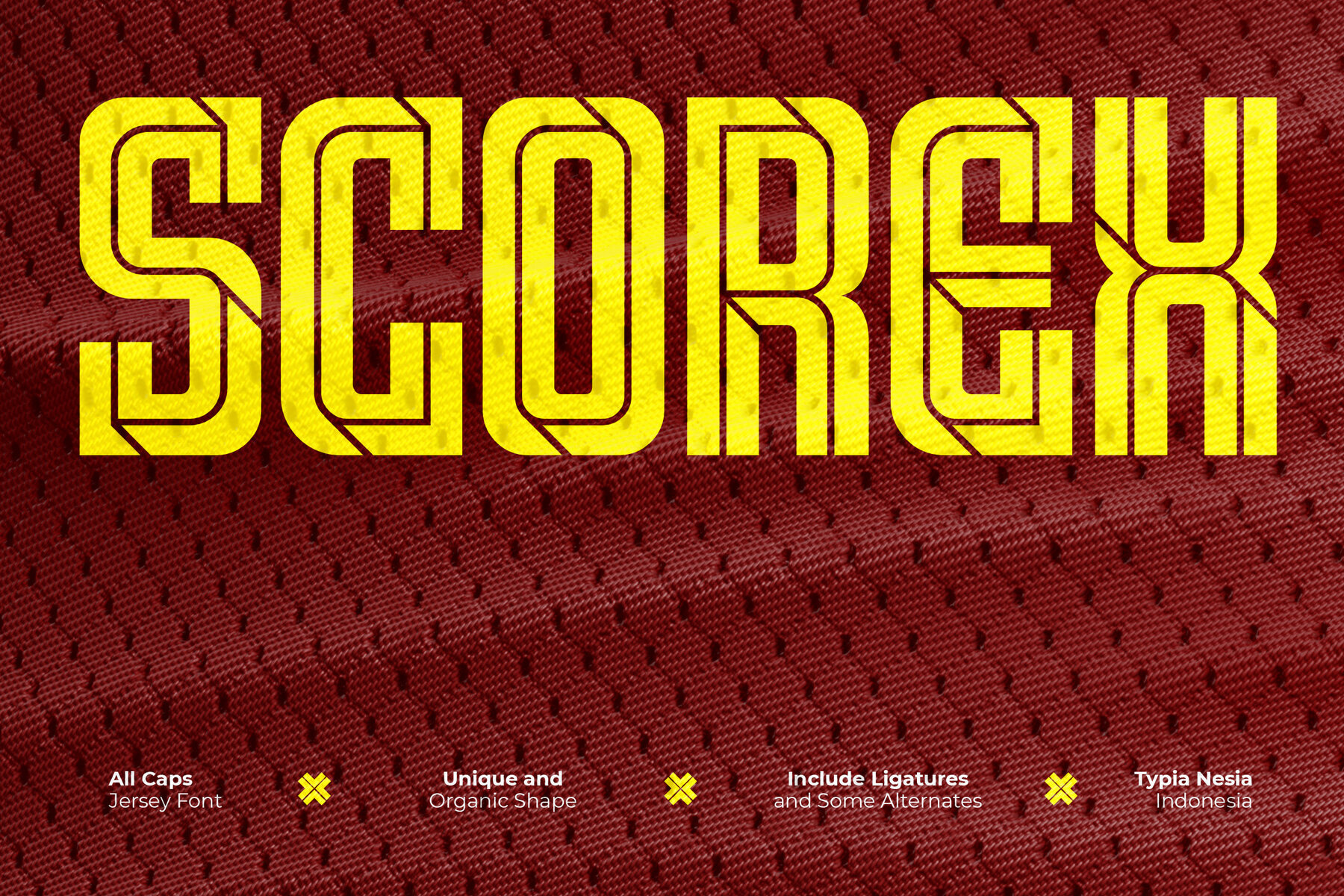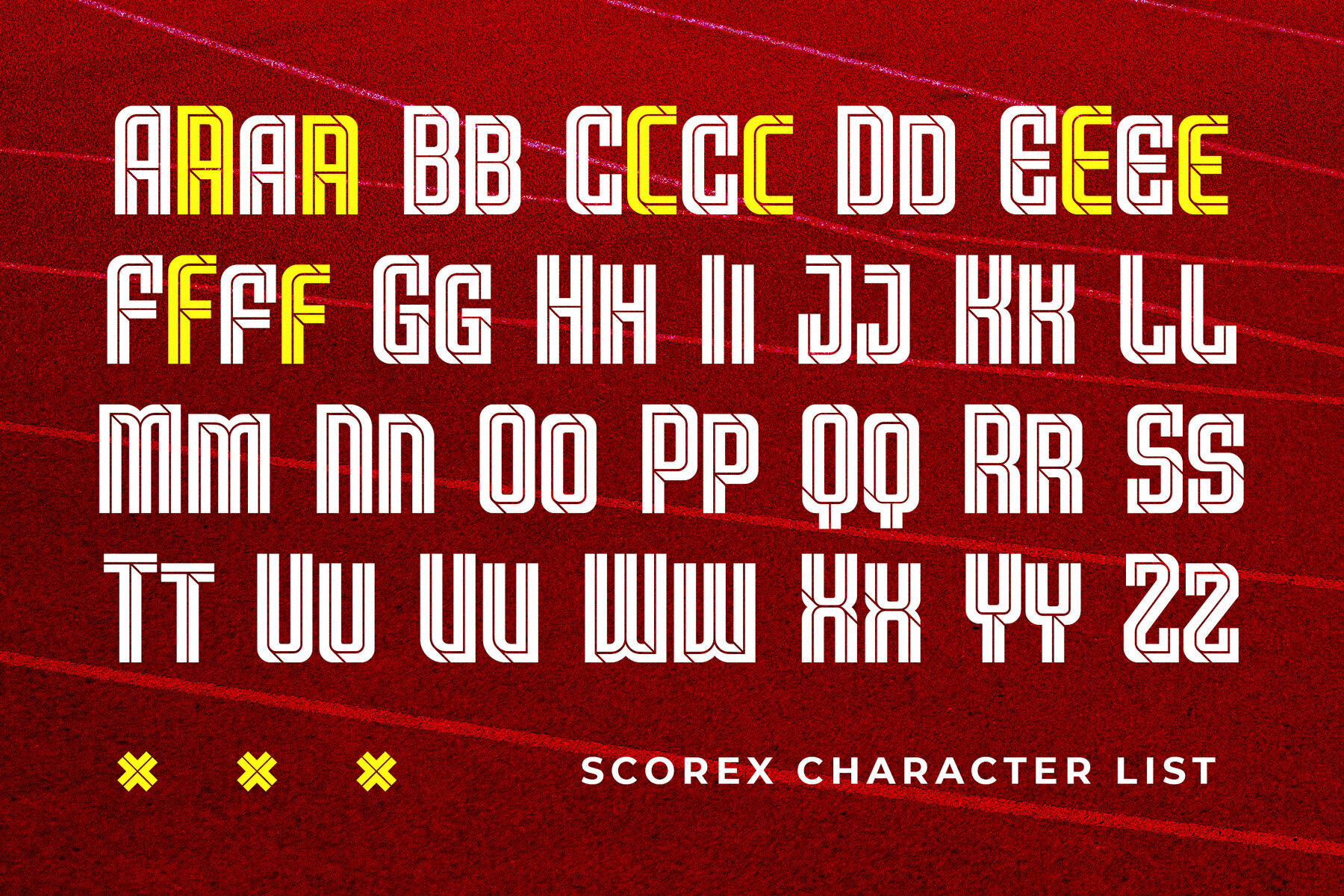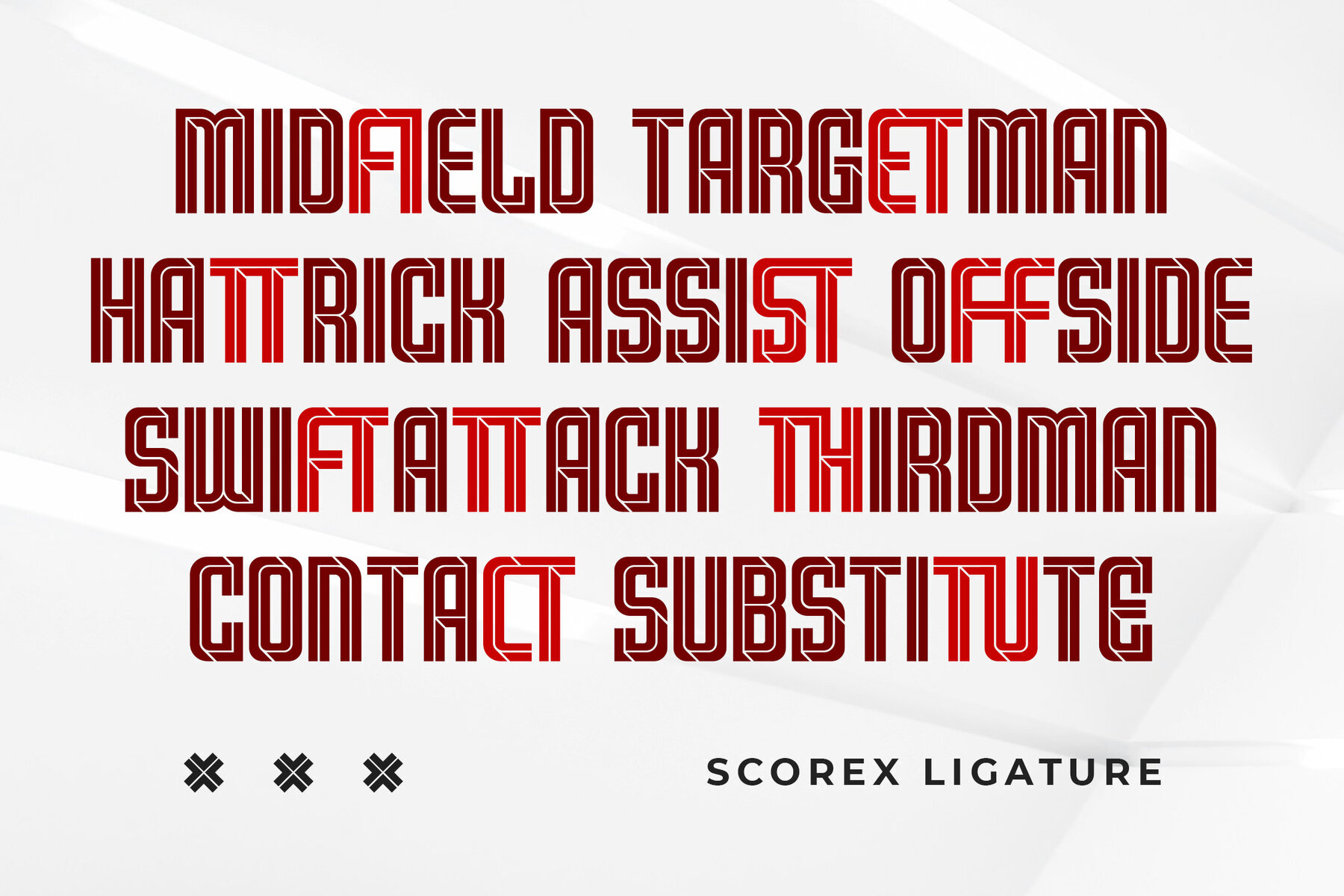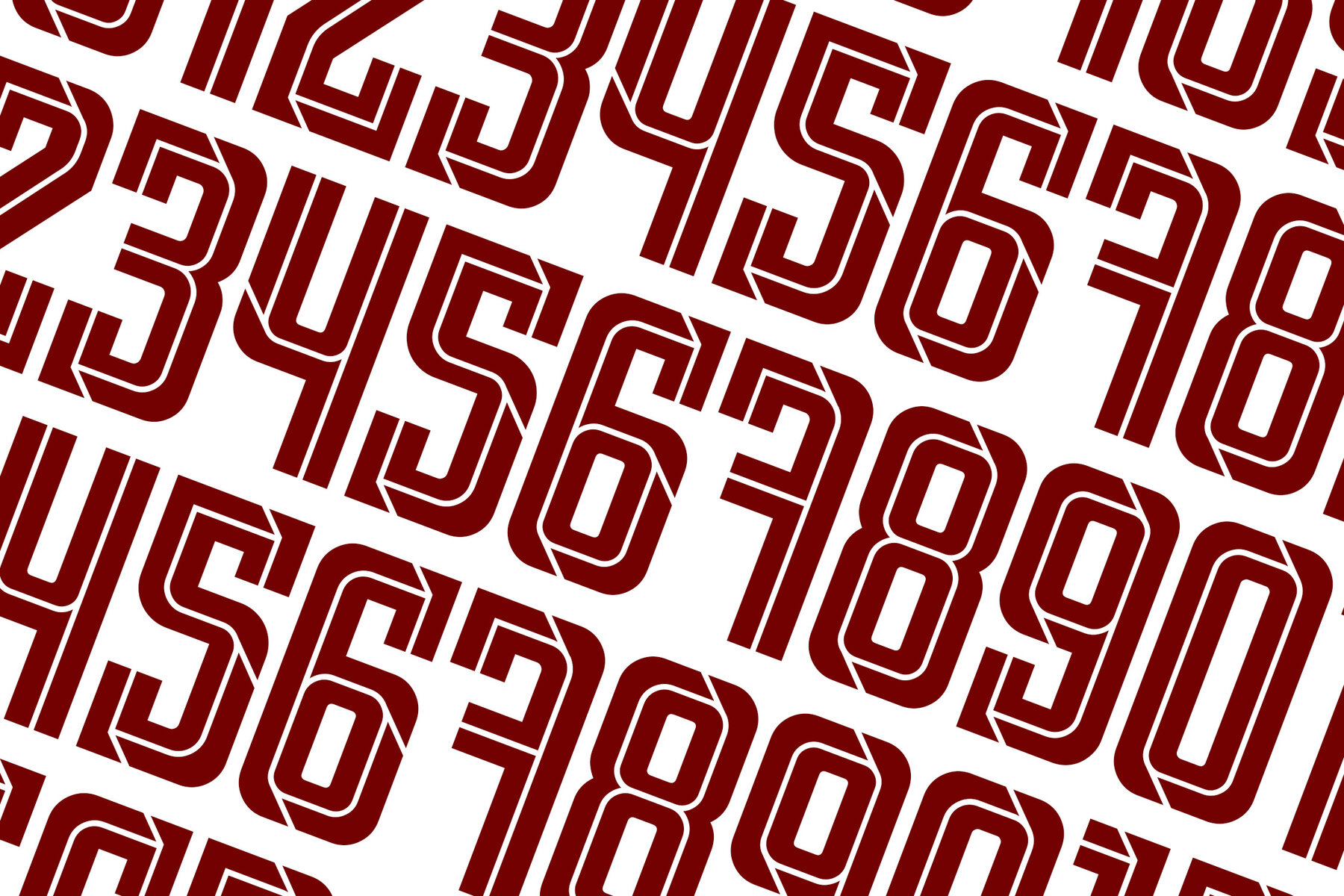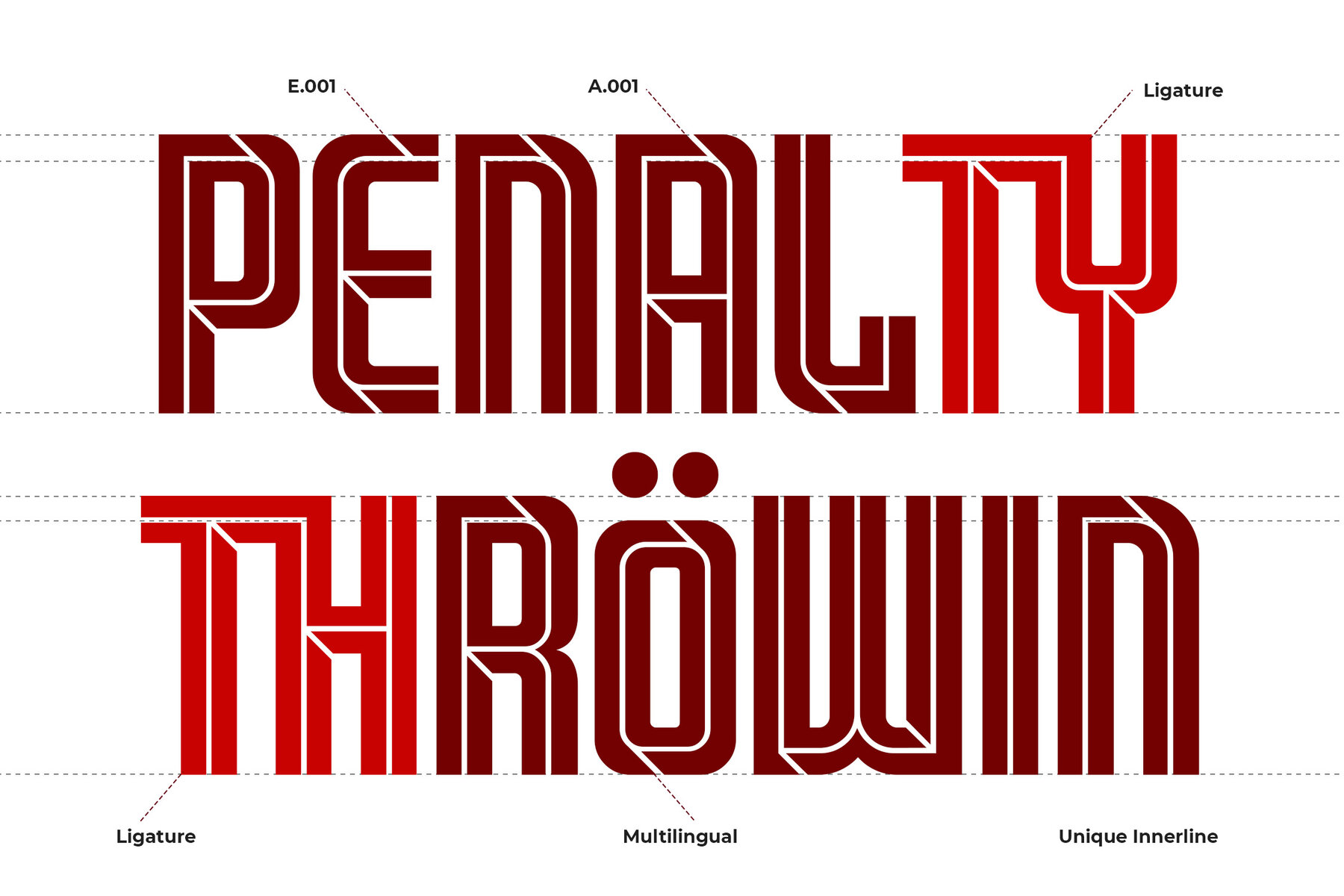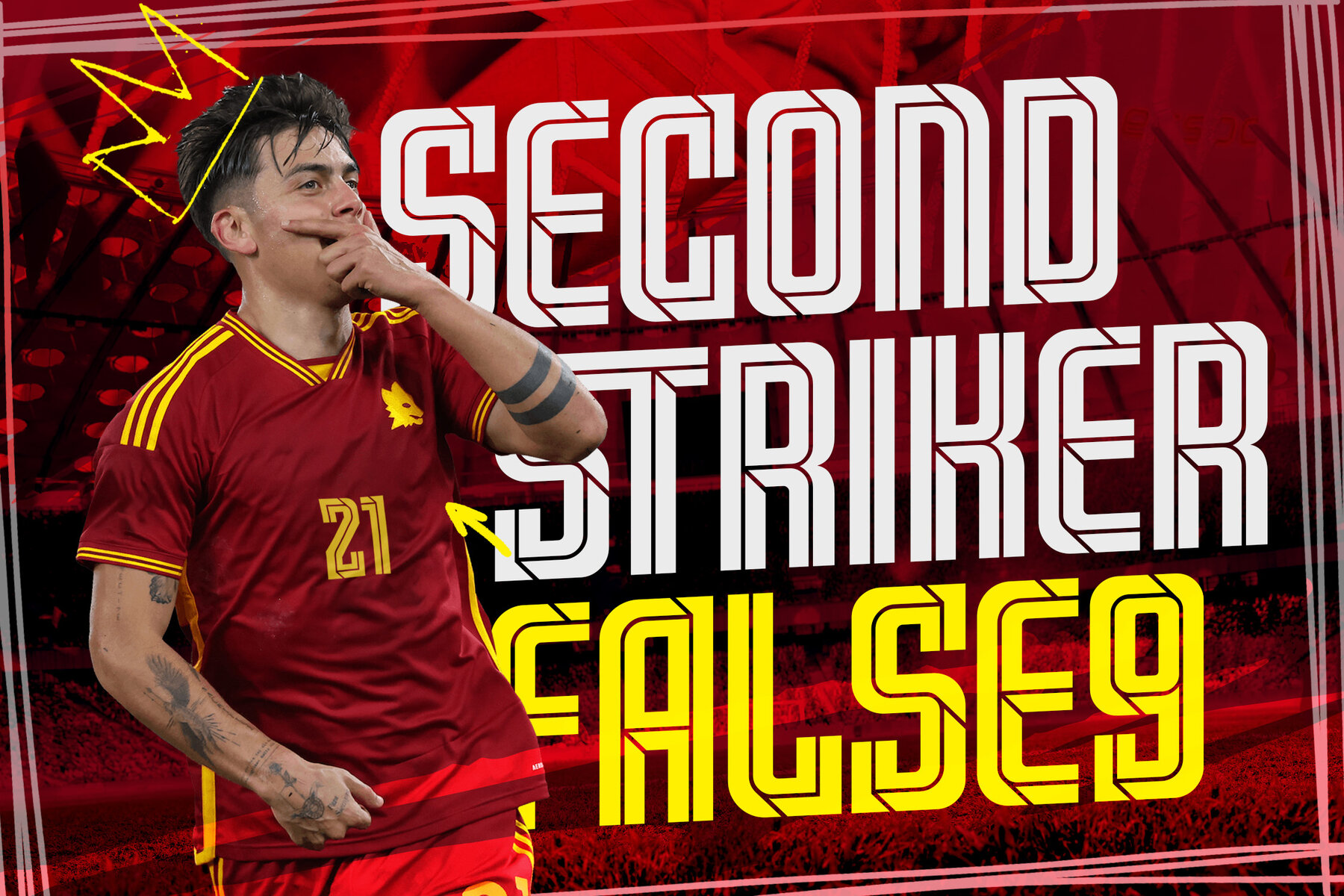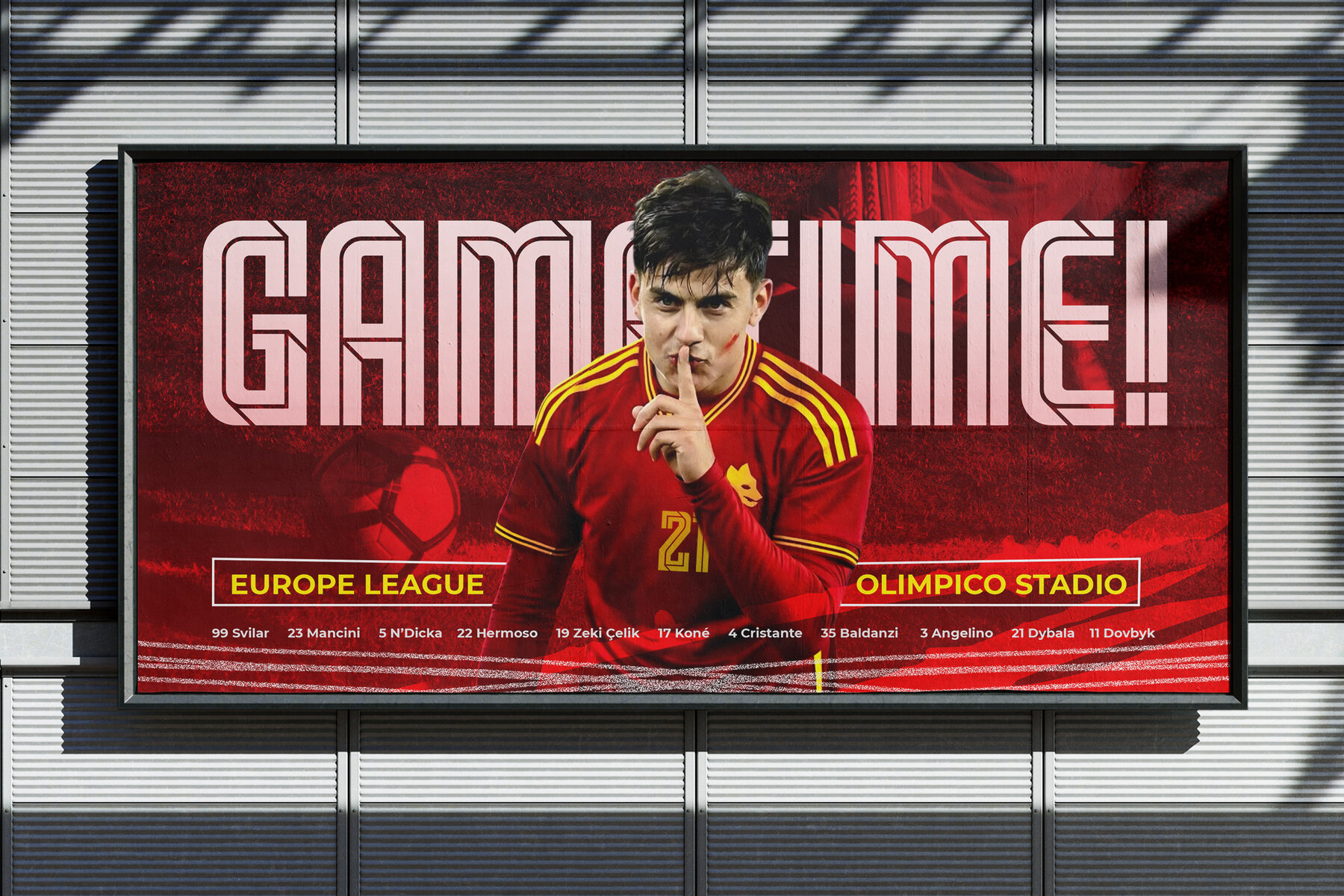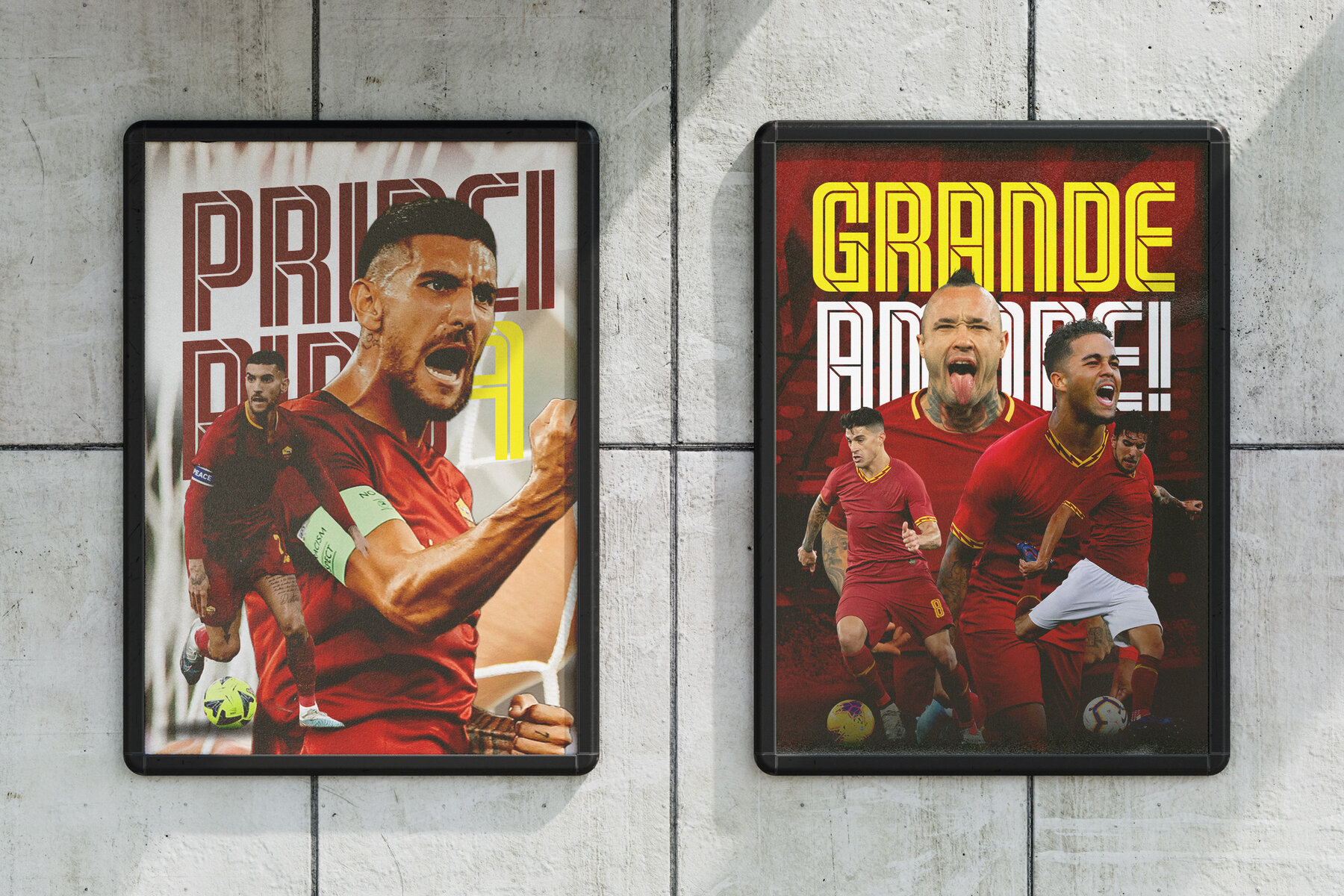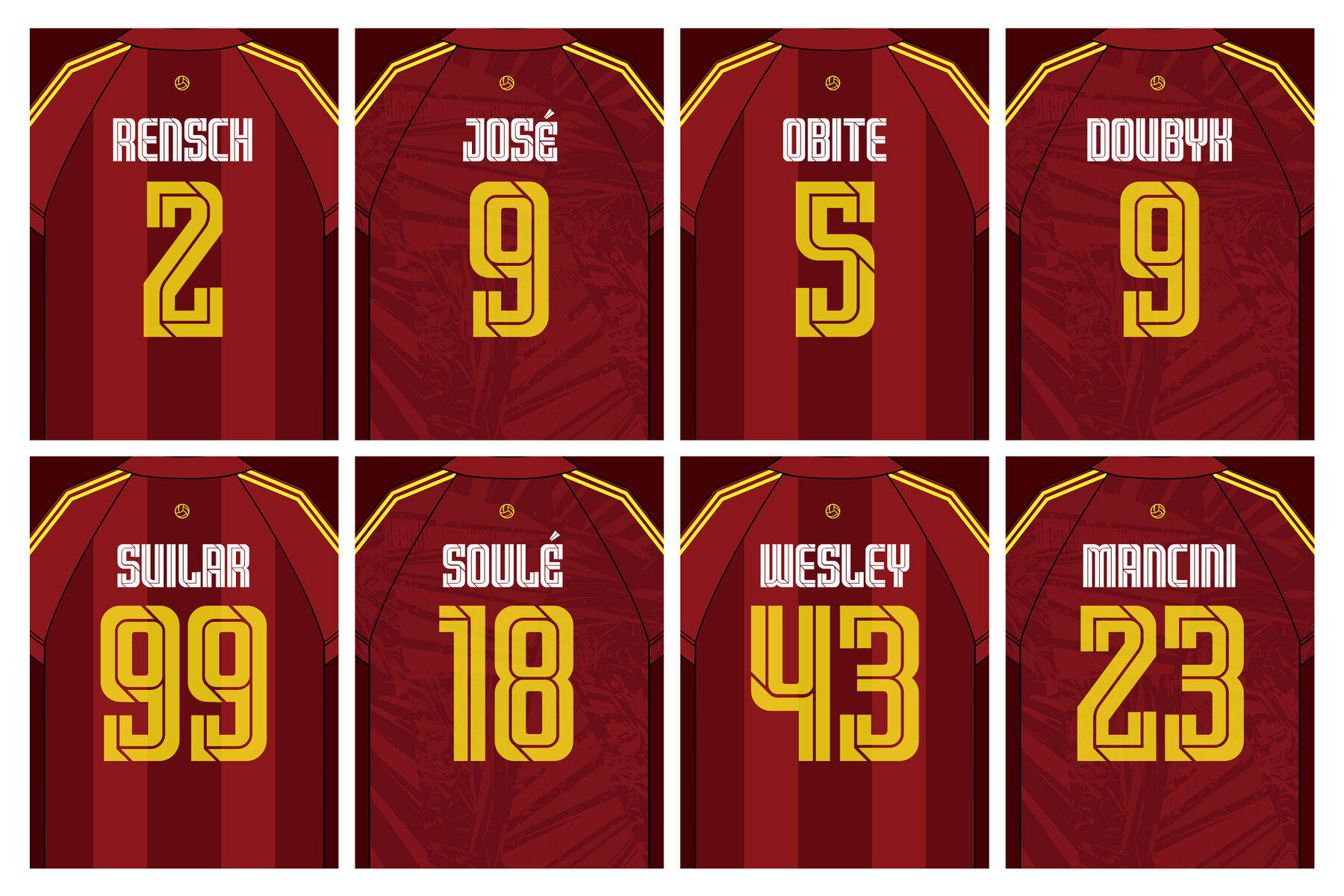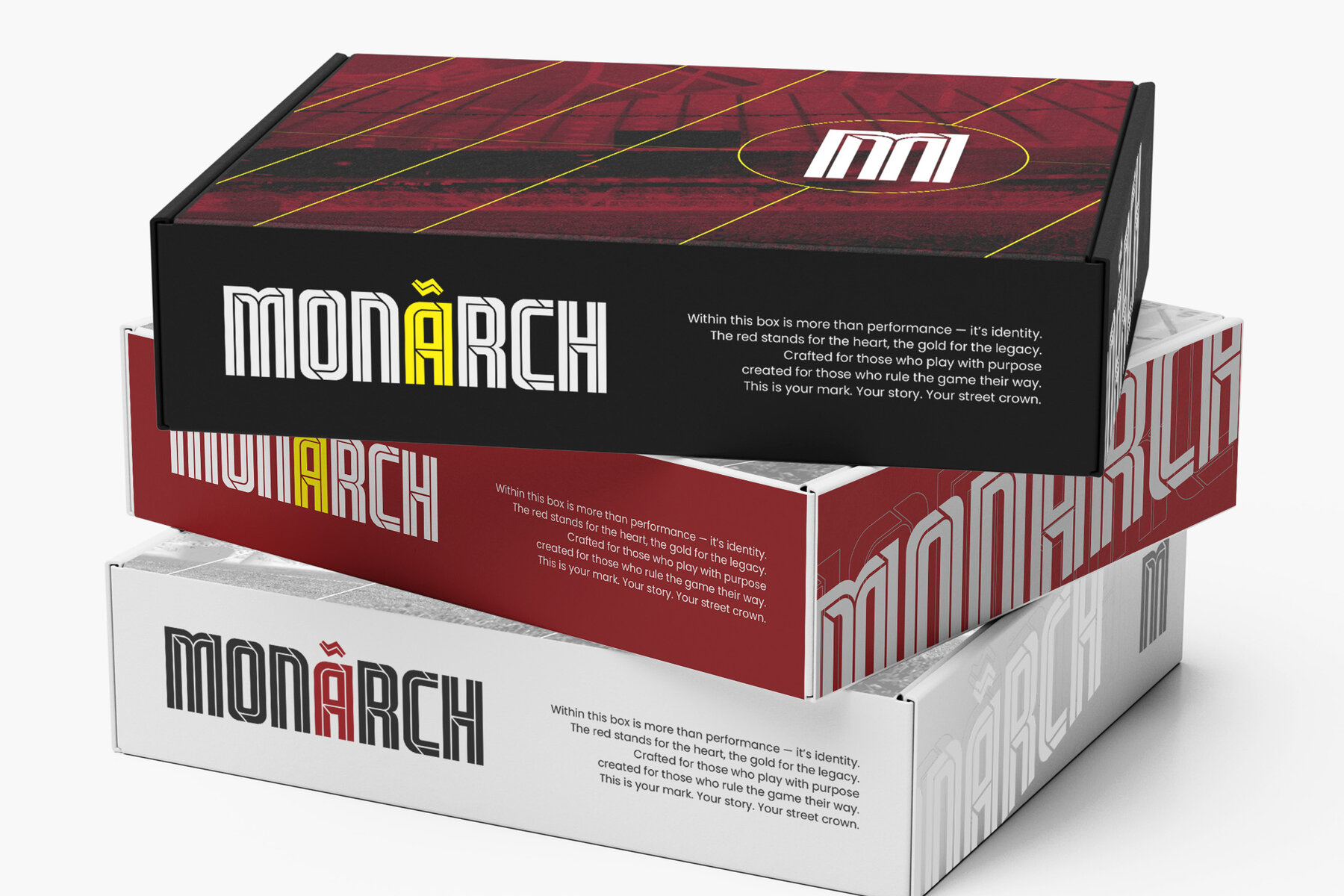
Scorex Font
Scorex Regular
Scorex commands attention with its bold, condensed geometry and energetic style. Designed for high-impact sports branding, this font delivers a striking, competitive tone in minimal space. Its ultra-tight letterforms create a powerful presence, making it ideal for a range of visual identities where visibility and intensity are key. Whether you're crafting a dynamic sports logo, athletic event poster, or standout game design, Scorex ensures immediate impact. The font adapts naturally to display headings, fitness campaigns, motocross themes, urban action graphics, vehicle decals, and tech-driven branding projects. Every character contributes to an authoritative, modern look that stands out in any setting.Scorex – Modern Condensed Sport Logo Font